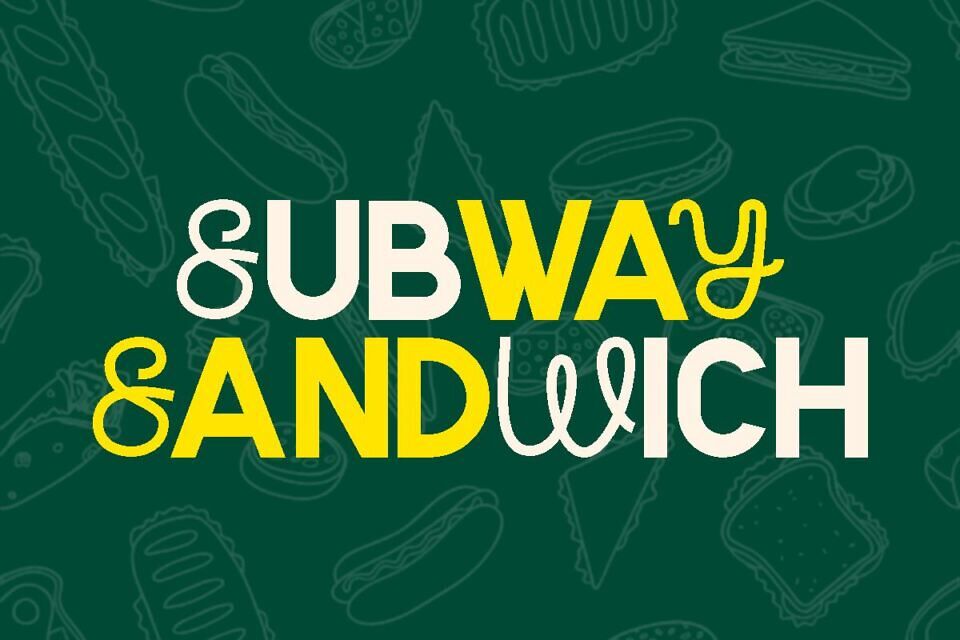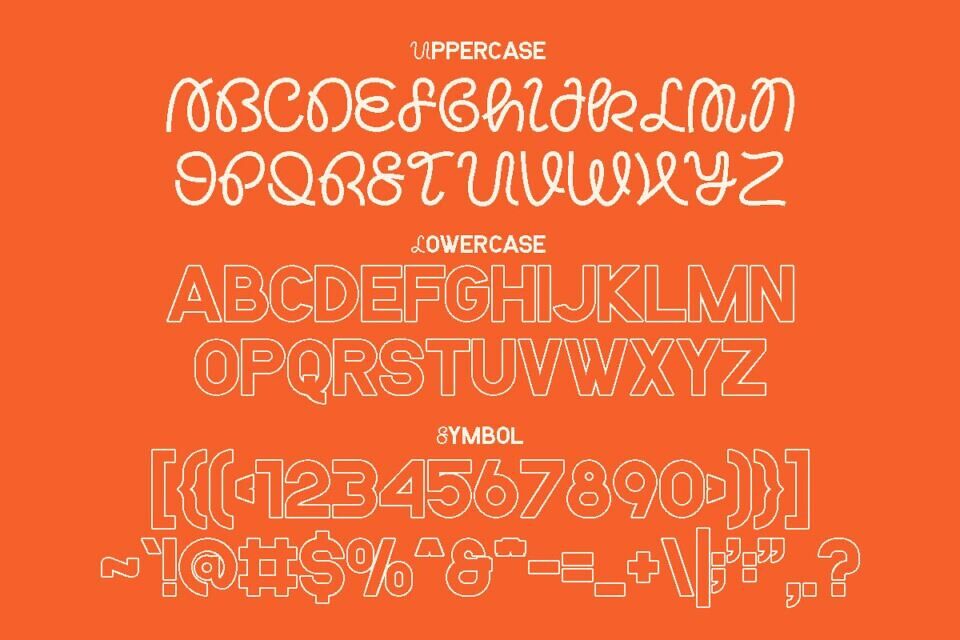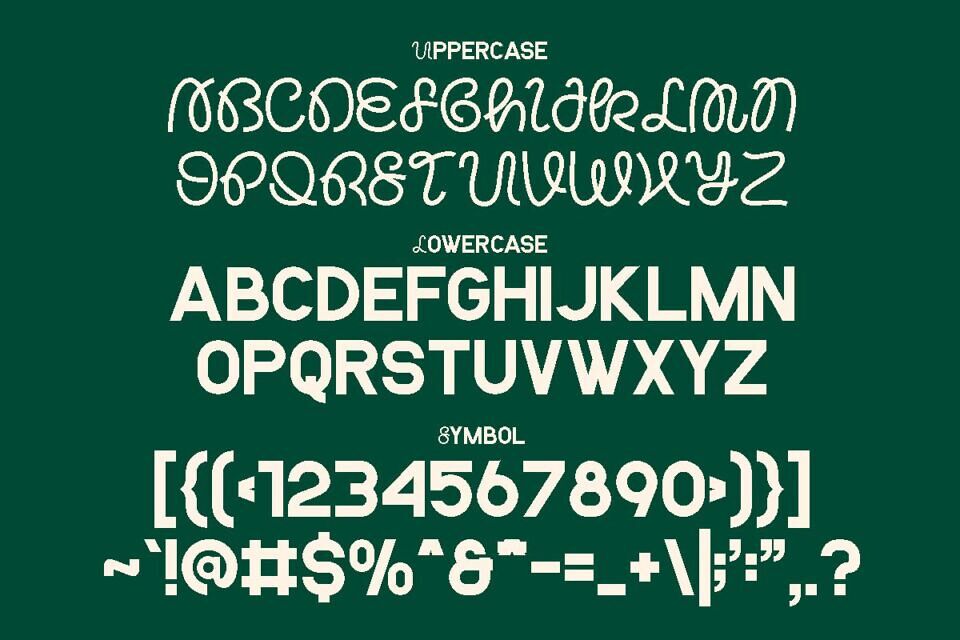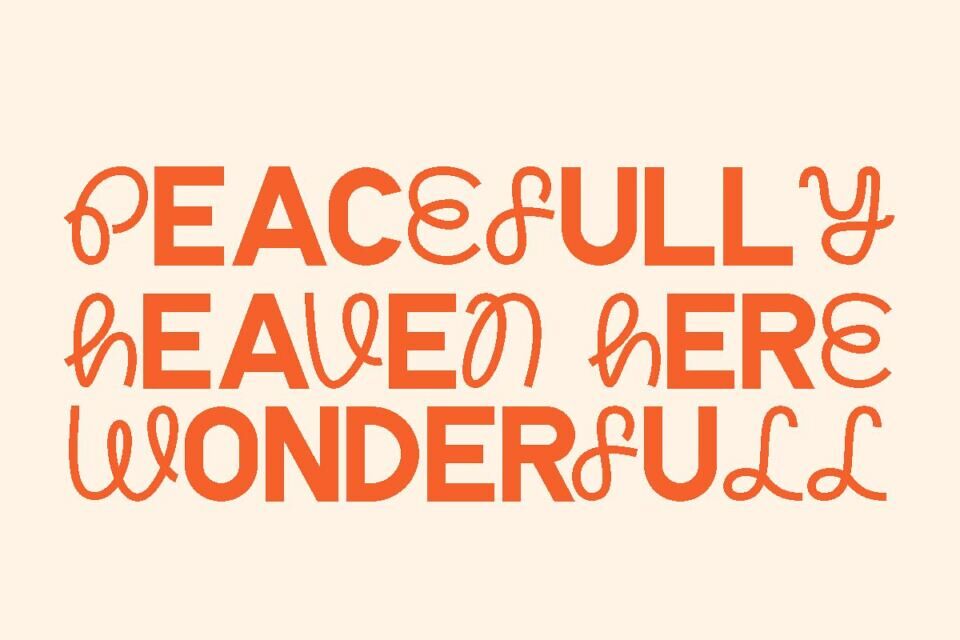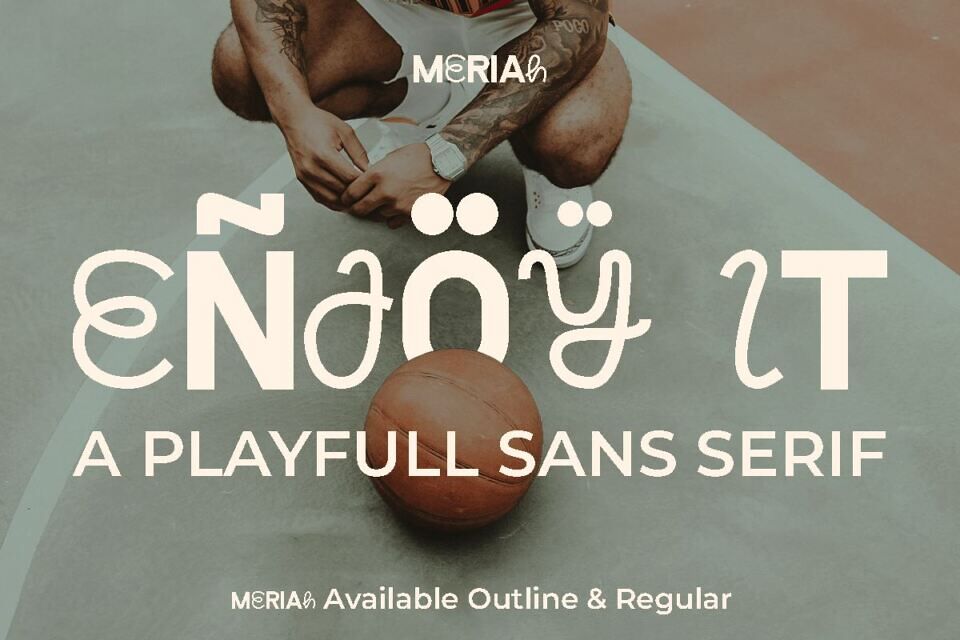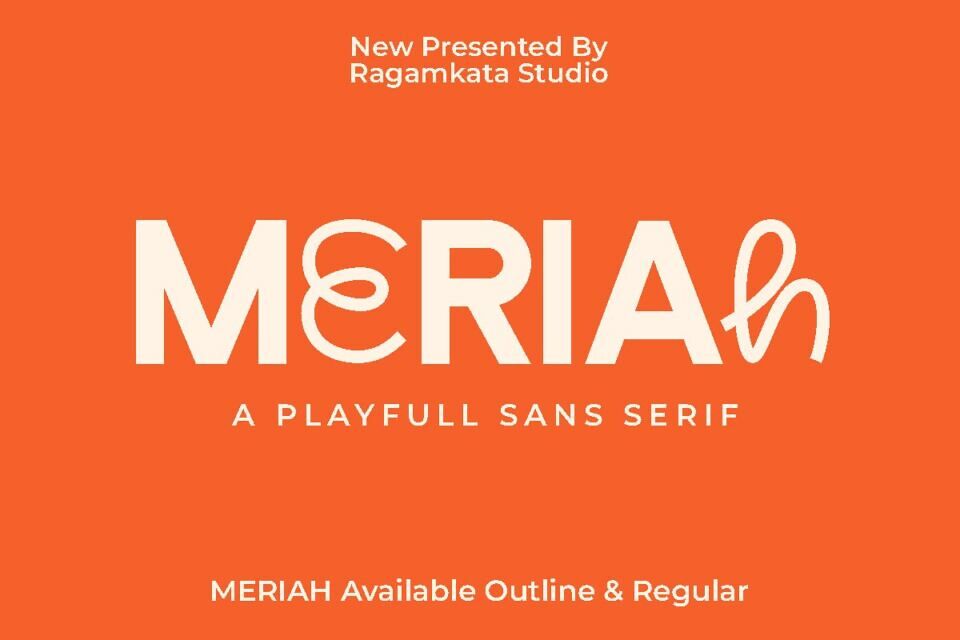
Meriah Font
Meriah is an experimental combination font. include 2 fonts that have a very different style and appearance, but make this font look unique.
This font is perfect for your design needs such as poster design, logo design, branding, social media design, book, magazine, etc.